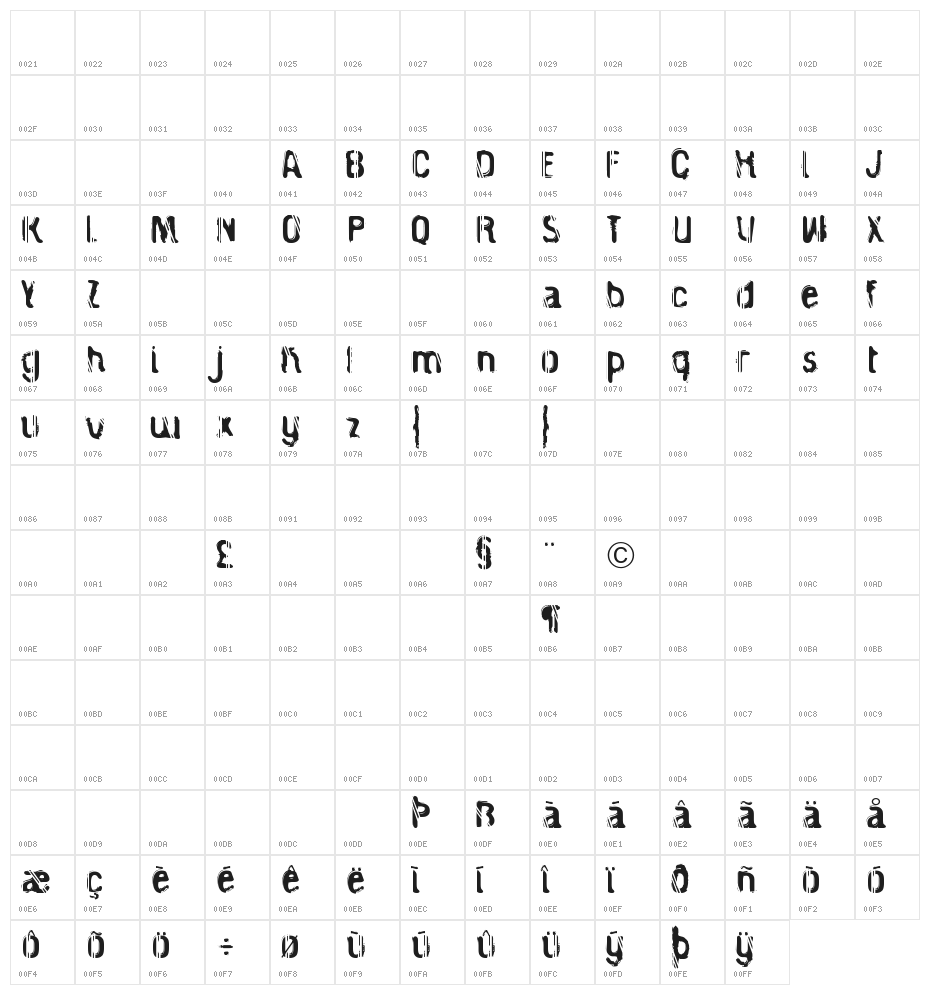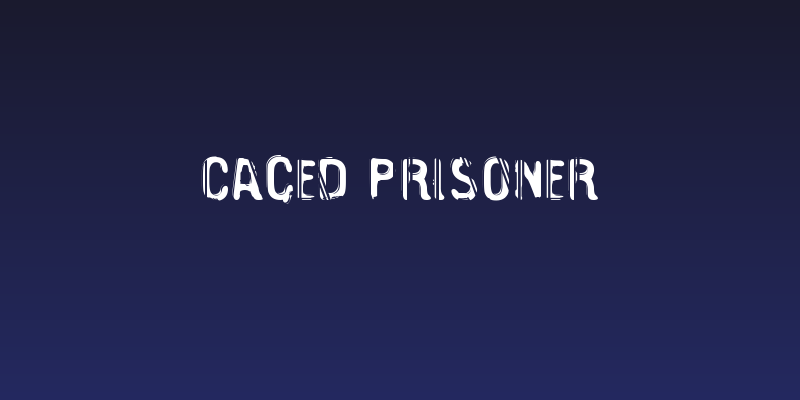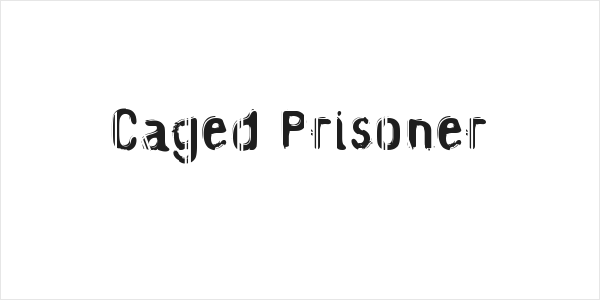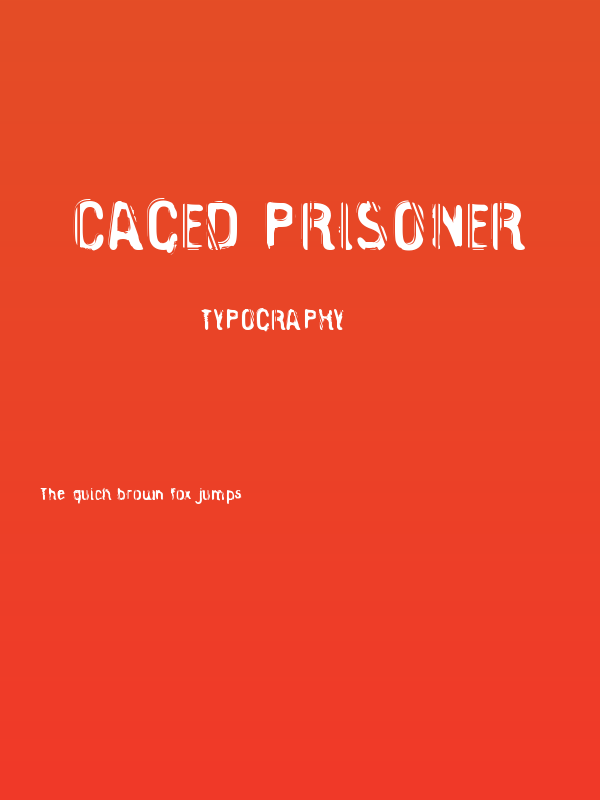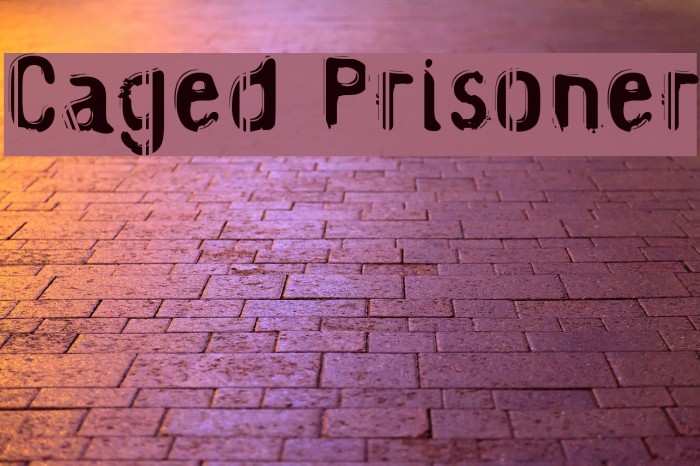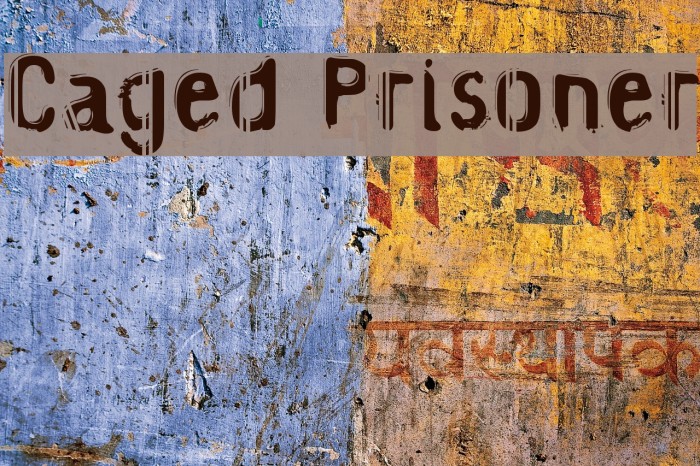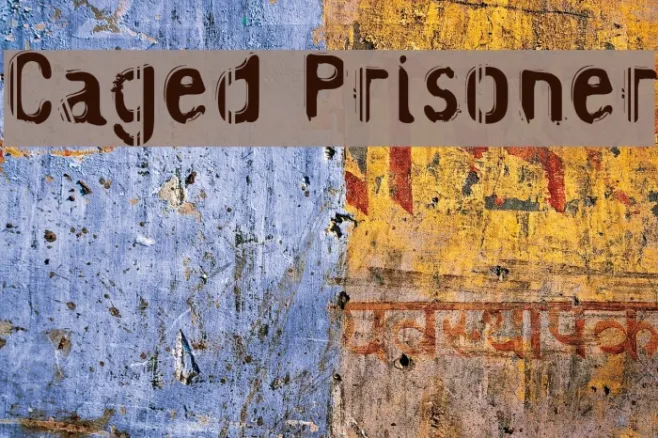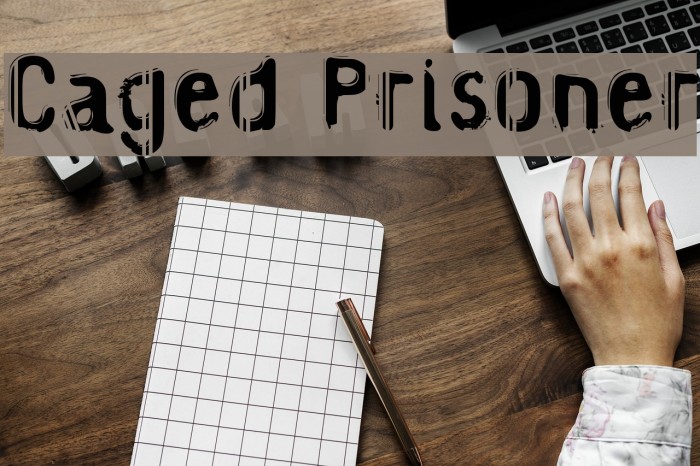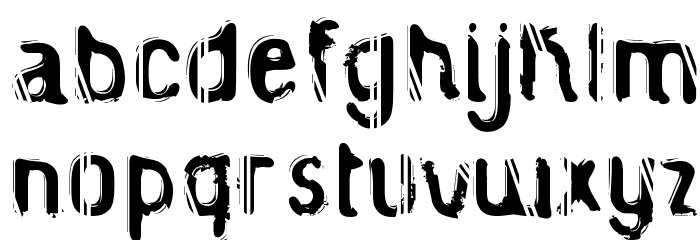
Caged Prisoner Font
Caged Prisoner Description
This font features a distressed and grunge style, with each character appearing as if it has been scratched or eroded. The uppercase and lowercase letters maintain a consistent design, with irregular edges and a rough texture that gives a sense of chaos and movement. The characters are bold and impactful, making them stand out with a unique, artistic flair. This font is ideal for projects that require a raw, edgy aesthetic, such as music album covers, posters, or any creative work that seeks to convey a sense of rebellion or nonconformity. The irregularities in the design add a dynamic quality, making it visually engaging and suitable for eye-catching headlines or titles.
| Overall Style | Grunge, Edgy |
| Use Case | Headlines, Posters, Creative Projects |
| Proposed Projects | Ideal for music album covers, posters, and creative projects needing an edgy aesthetic. |